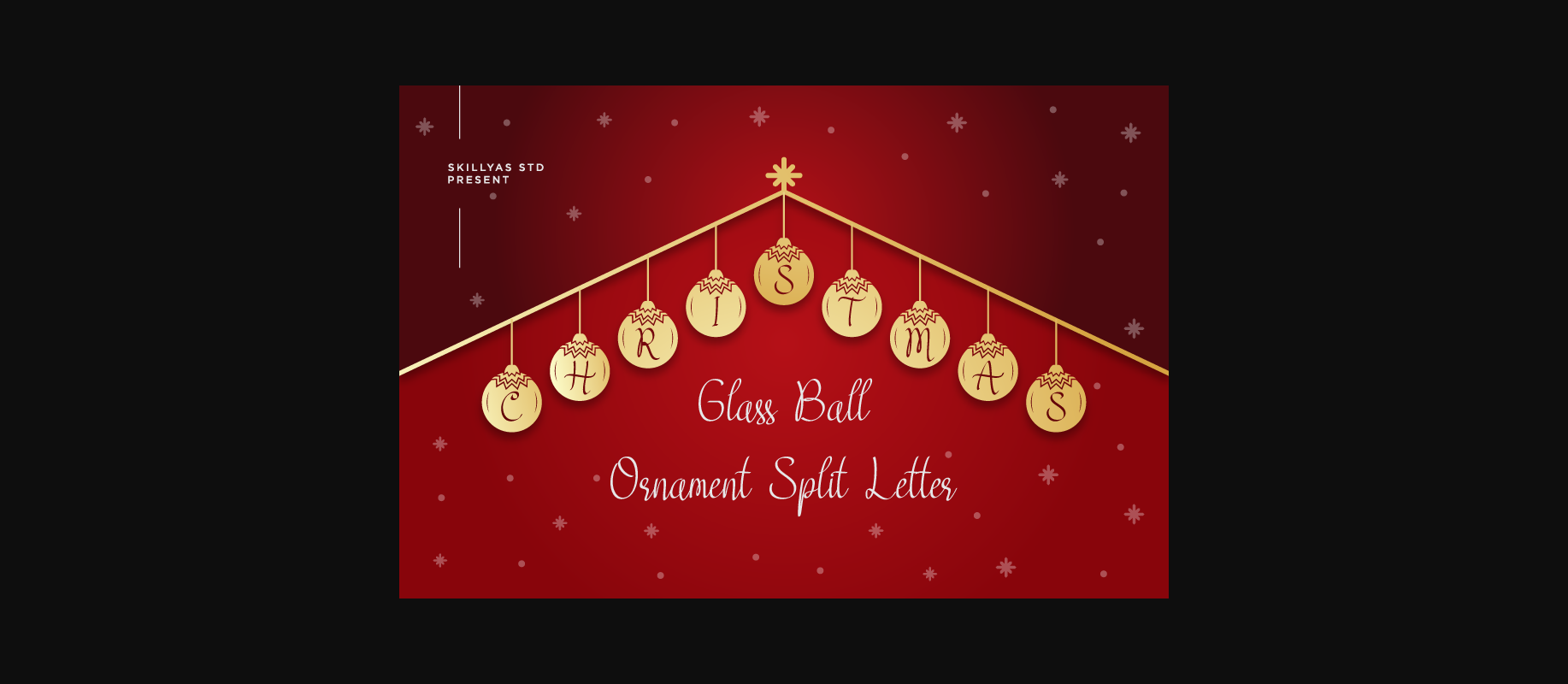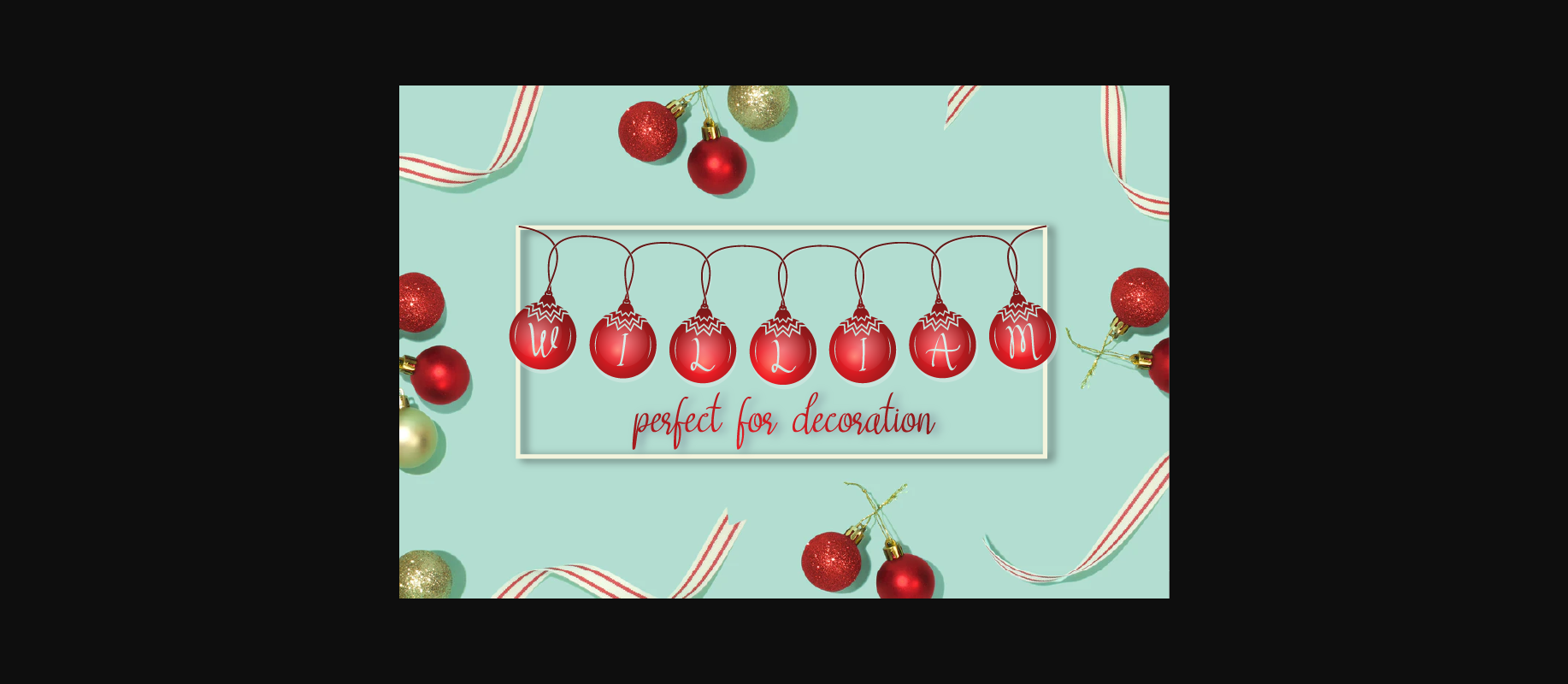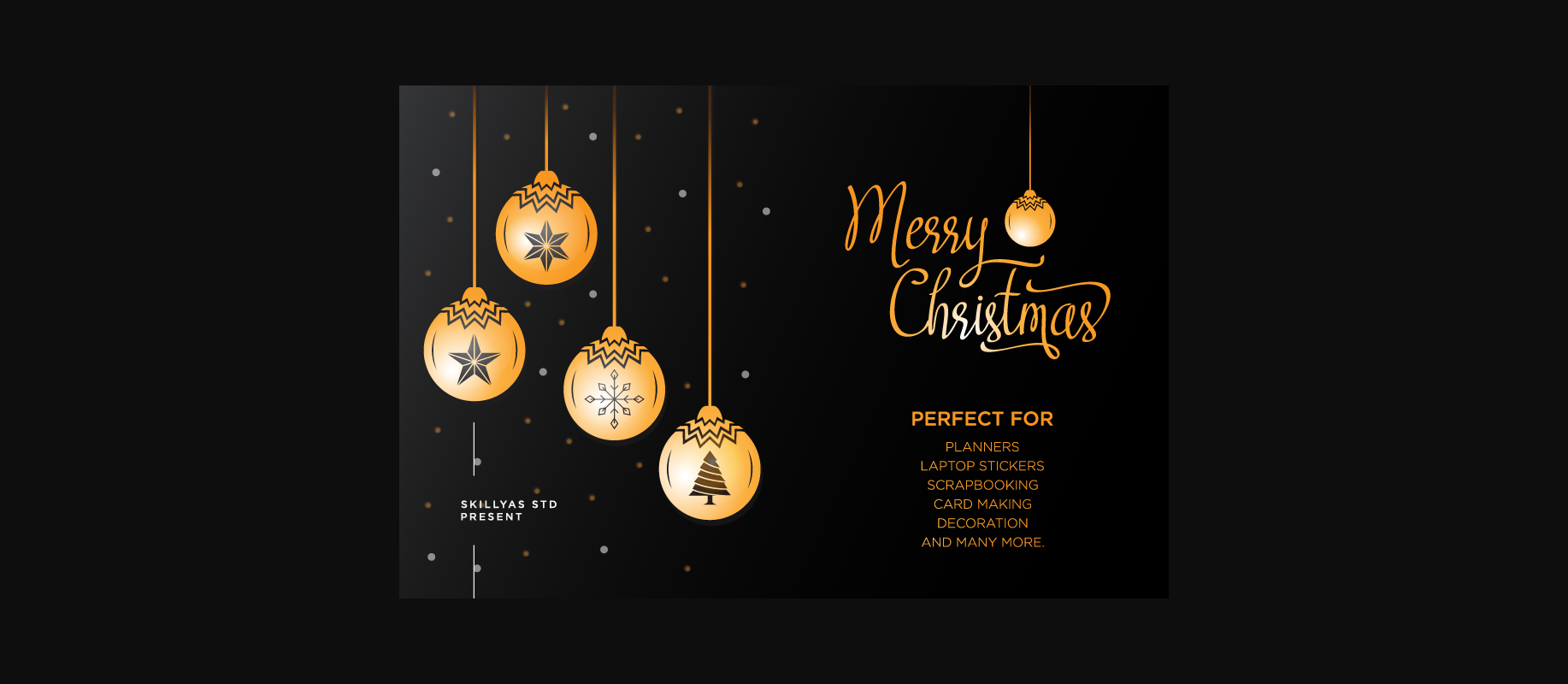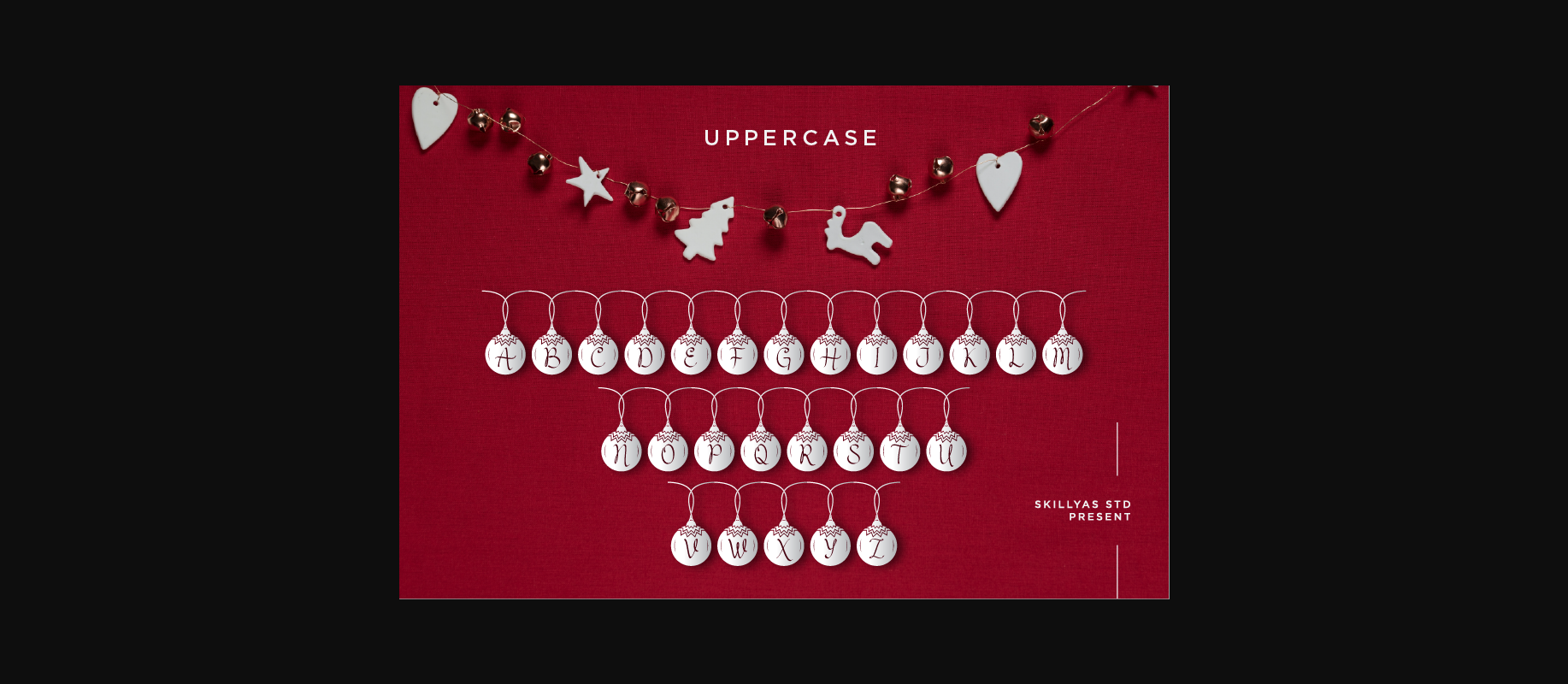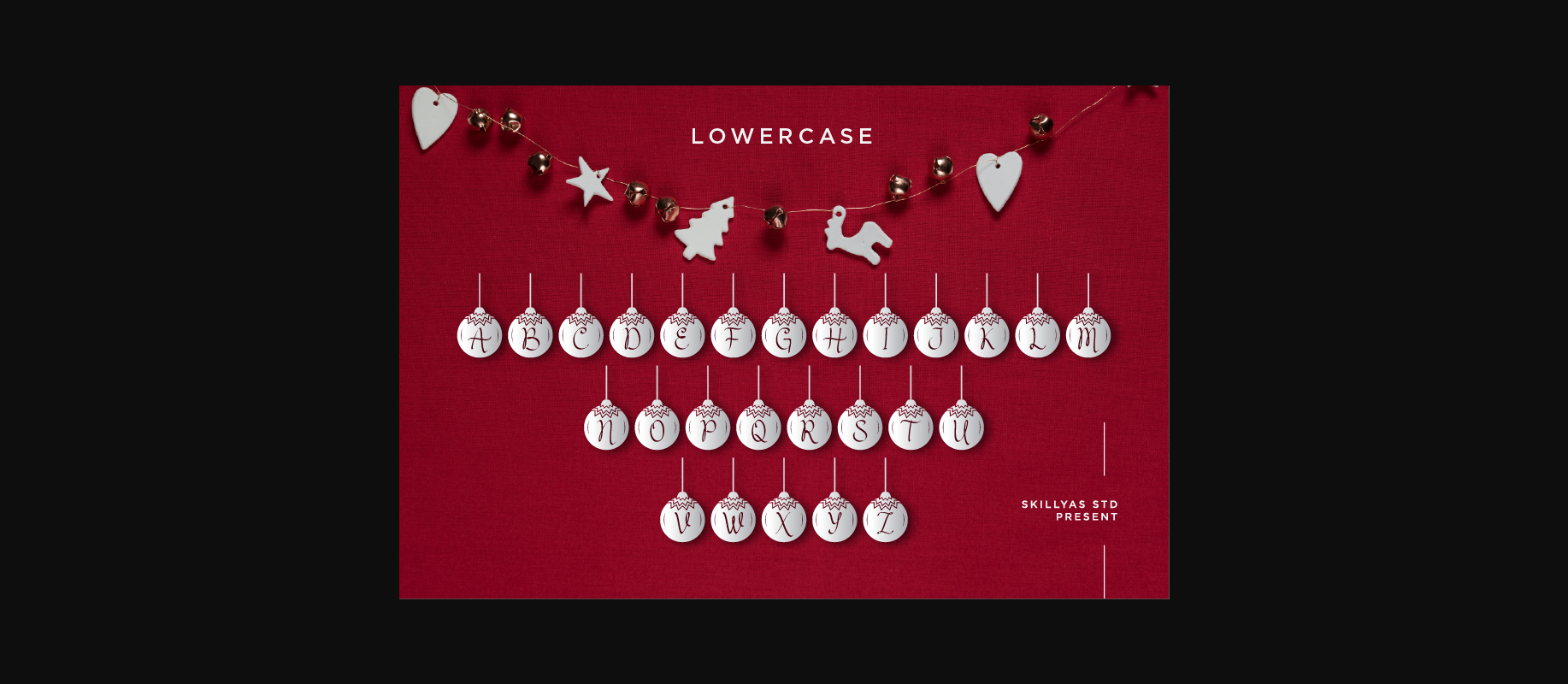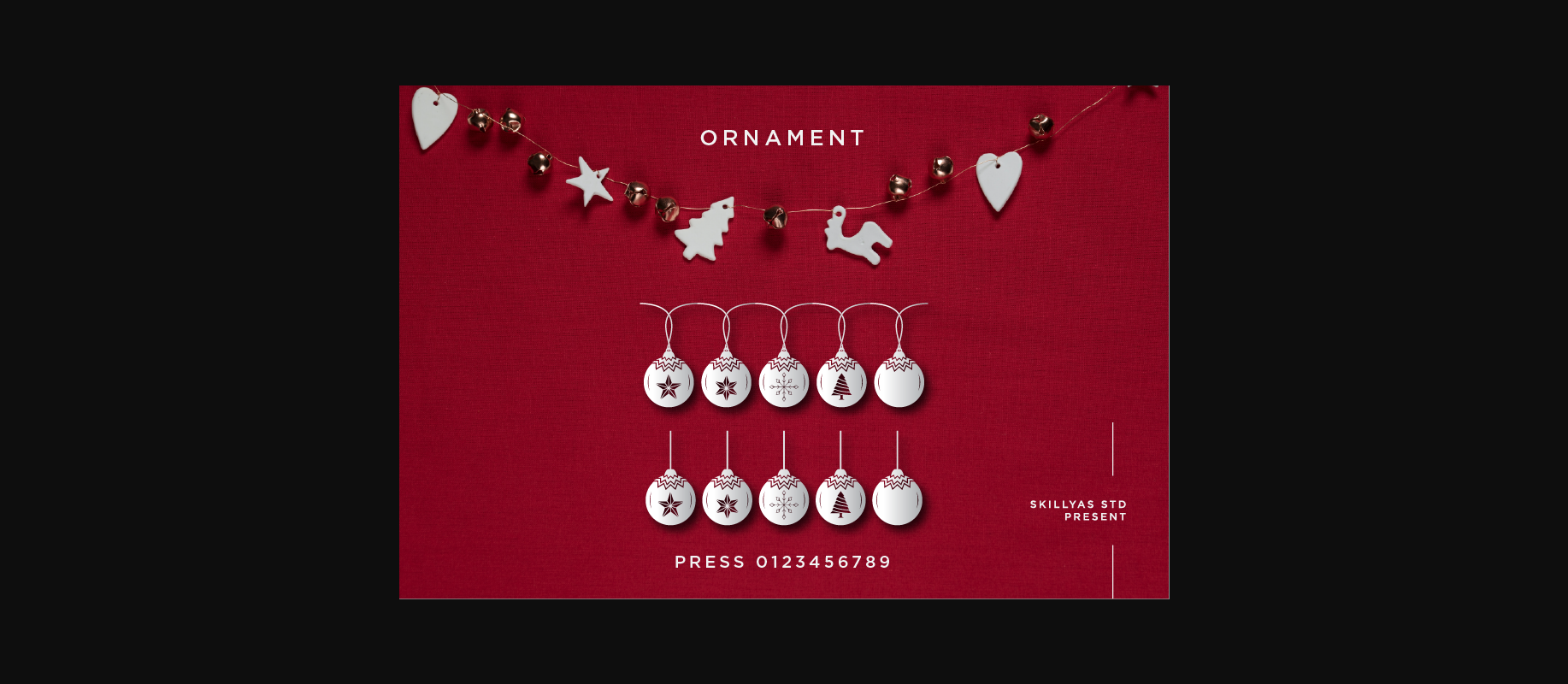
Christmas Glass Ball Font
About Christmas Glass Ball Font
Christmas Glass Ball is a lovely and festive decorative font. Fall for its ravishing style and use it to create gorgeous wedding invitations, beautiful stationary art, eye-catching social media posts, and much more!